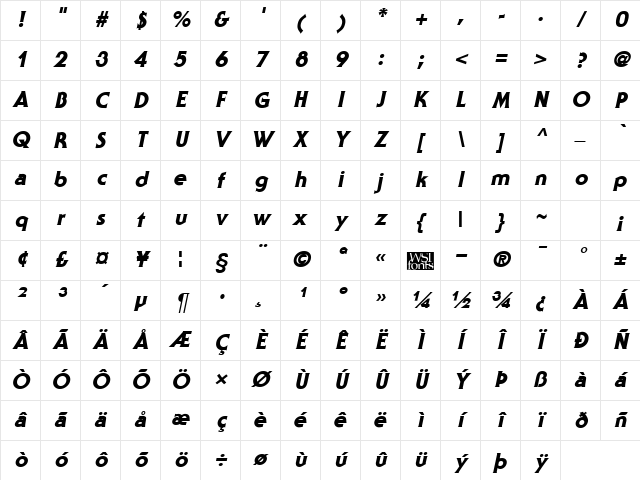
Staid Gothic Heavy takes a clean, functional approach - its unadorned letterforms prioritise legibility and work reliably across screen and print environments. The slanted form adds forward momentum and visual energy.
Font Pairing: Works well alongside a characterful serif or display font that can carry the expressive load while Staid Gothic Heavy handles the functional copy.
Pro Tip: Use Staid Gothic Heavy for UI labels, navigation, and short-form body copy where clean legibility is the priority.